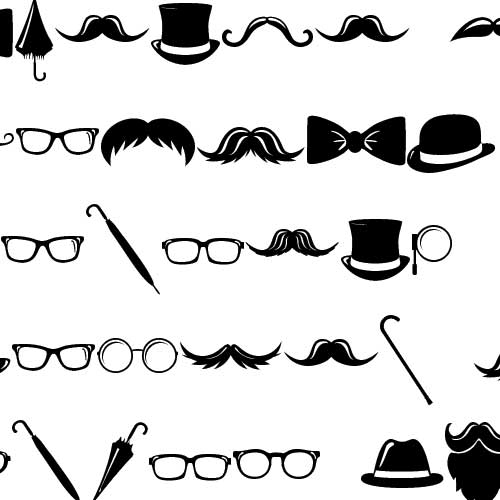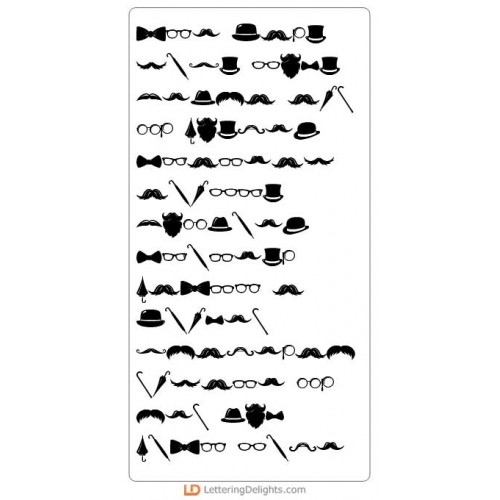
DB Gentlemen - DB
This fun doodlebat font features 26 iconic gentleman imagery. Perfect for cards, gifts, decor, crafts, scrap book pages, planner stickers and more!